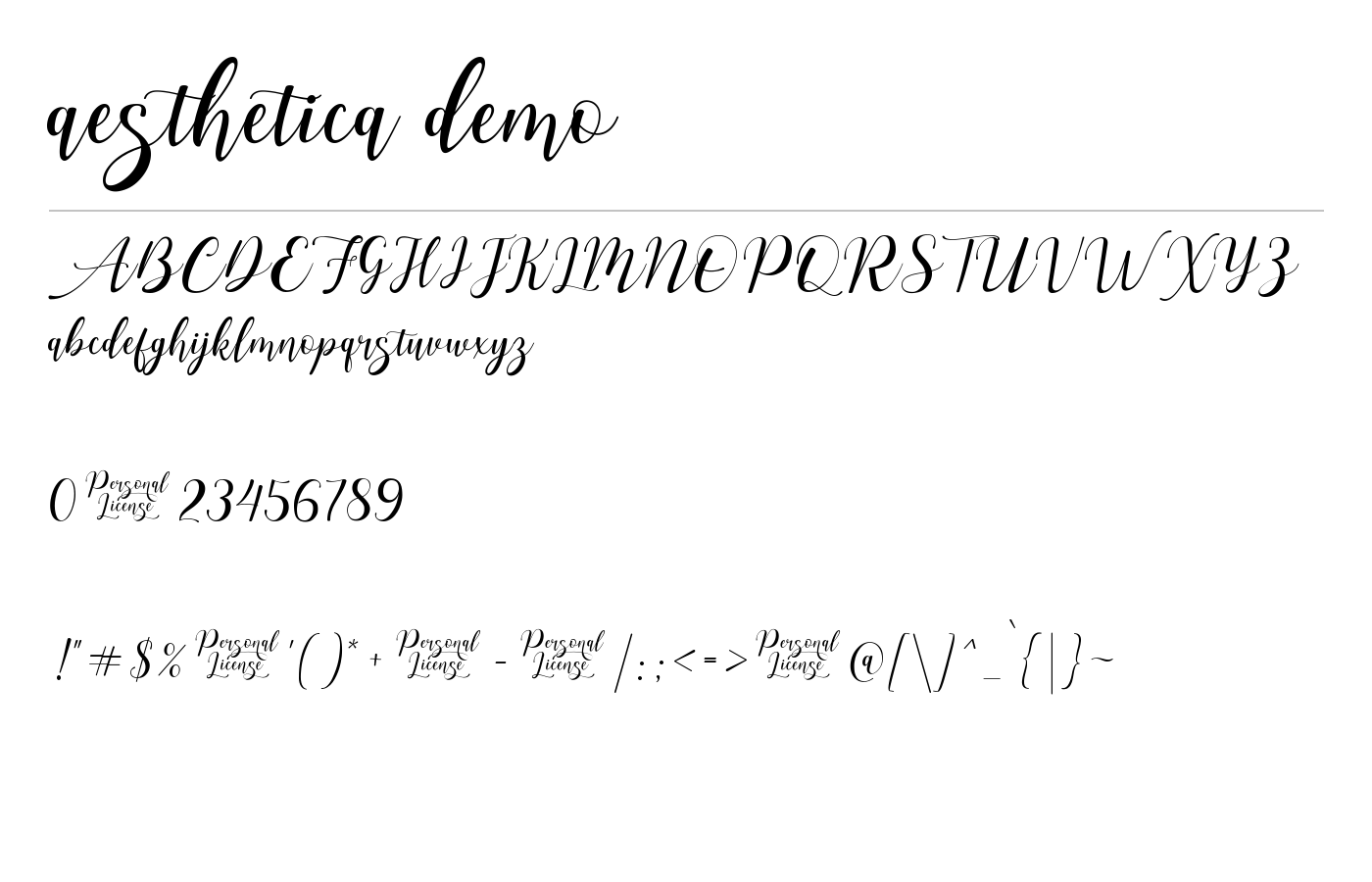
Aesthetica Demo is an elegant script font with a refined, flowing style that blends classic calligraphy with modern flair. Its delicate, high-contrast strokes and graceful swashes lend a sophisticated, luxurious feel, making it ideal for invitations, branding, and decorative headlines where a touch of beauty and charm is desired. This font works best in designs that seek a personal, artistic touch to convey elegance and creativity.
aesthetica demo Font
About aesthetica demo Font
| Font family | aesthetica demo Font |